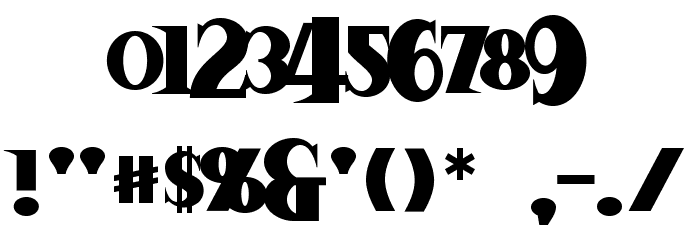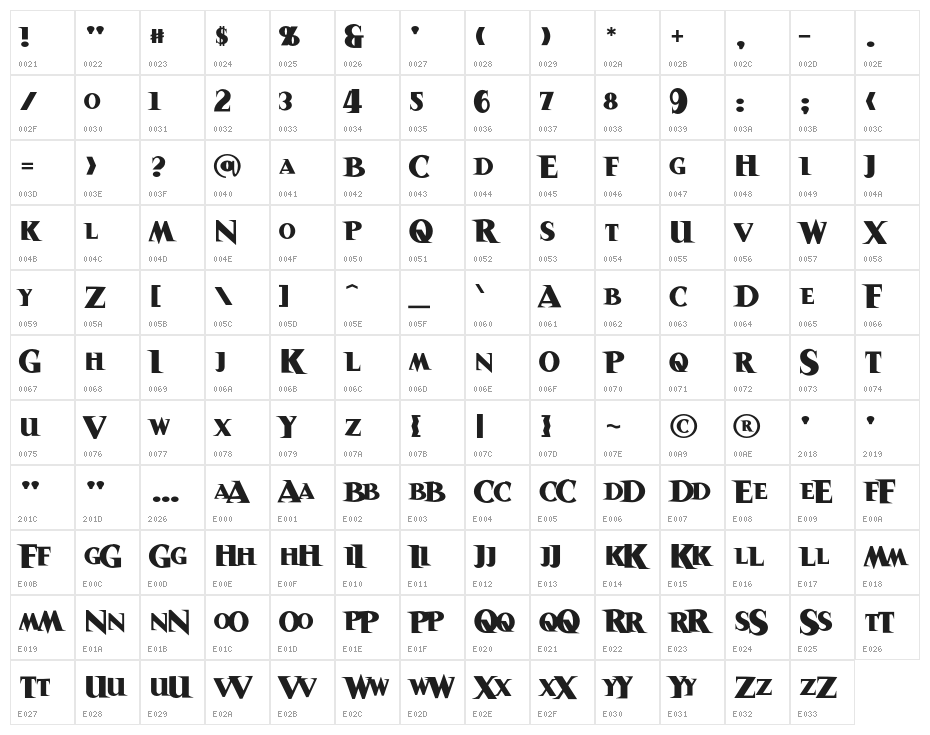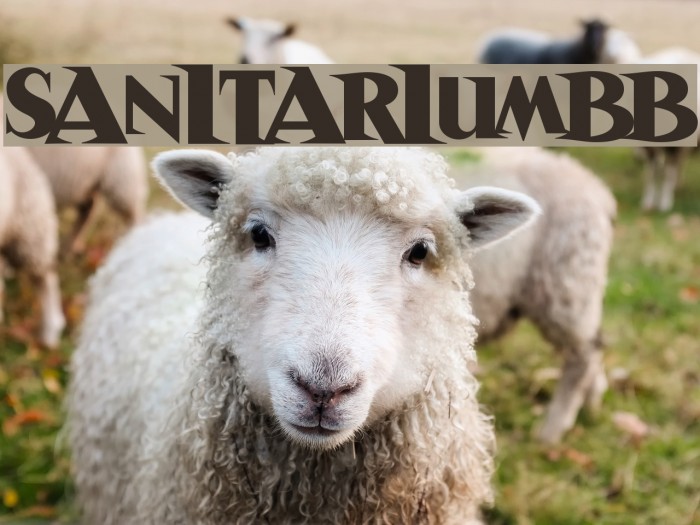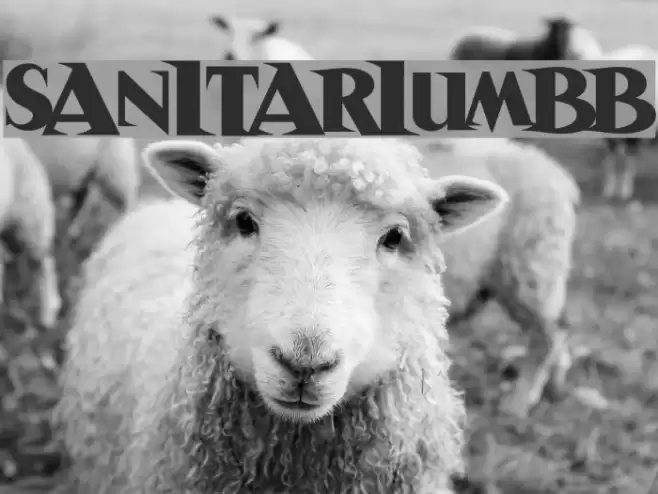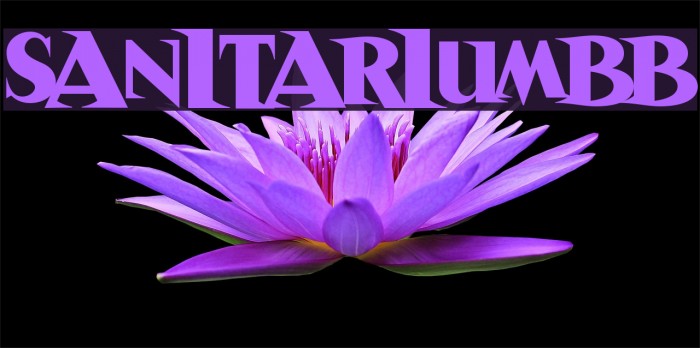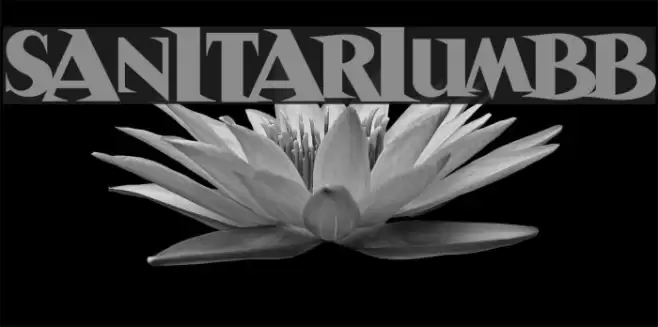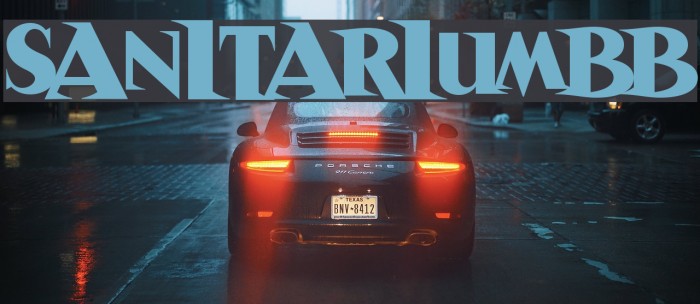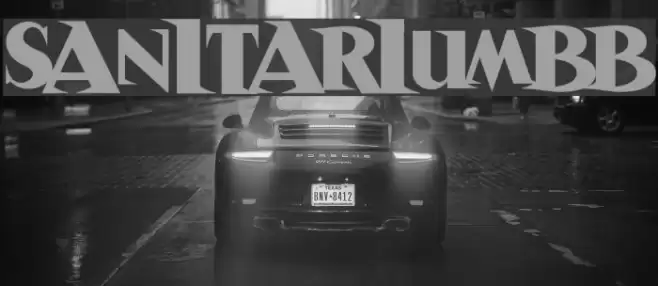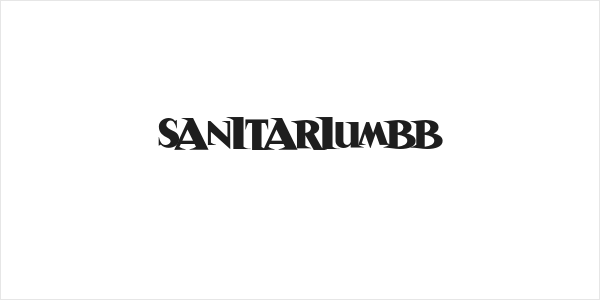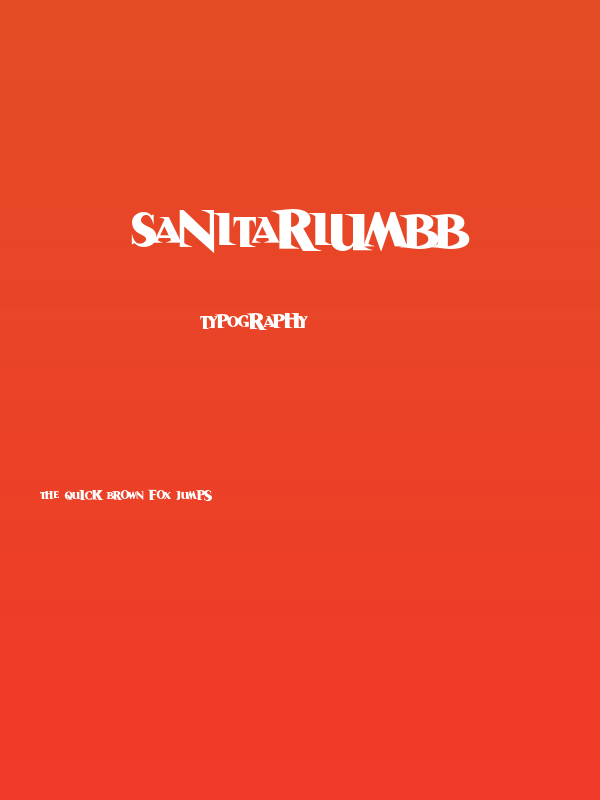
SanitariumBB Font
SanitariumBB Description
This font features a bold and dramatic style with sharp, angular serifs and a strong presence. The uppercase letters are particularly striking, with a unique design that combines traditional serif elements with a modern twist. The lowercase letters maintain a consistent style, offering a cohesive look across the typeface. Numbers and special characters are equally bold, ensuring they stand out in any design. The overall aesthetic is both vintage and contemporary, making it versatile for various design applications.
| Proposed Projects | Ideal for use in posters, book covers, branding, and any project requiring a strong visual impact. |